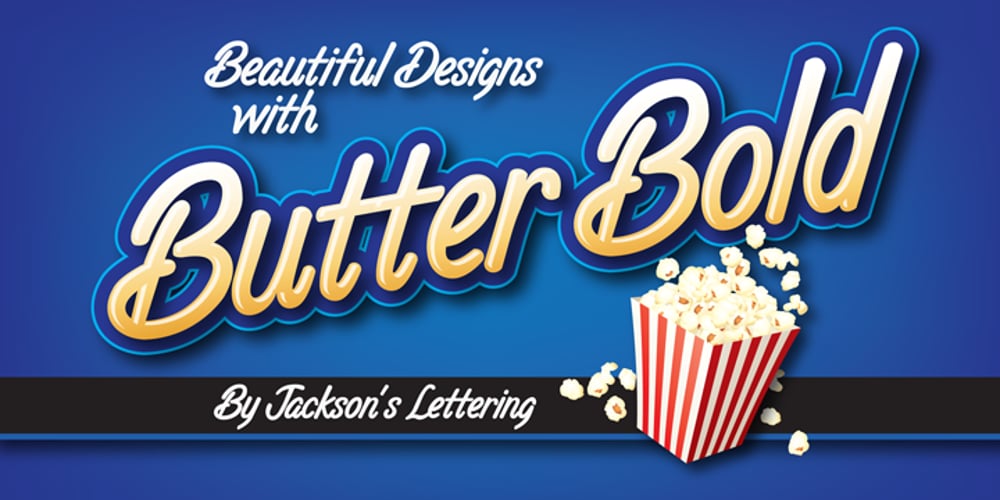
Butter Bold Font Family was designed by Jack A. Gardner and published by Jackson’s Lettering. Butter Bold contains 1 styles and family package options. Use your imagination. Butter Bold Brush Script is a fun universal font that will work with almost anything you want it to do!